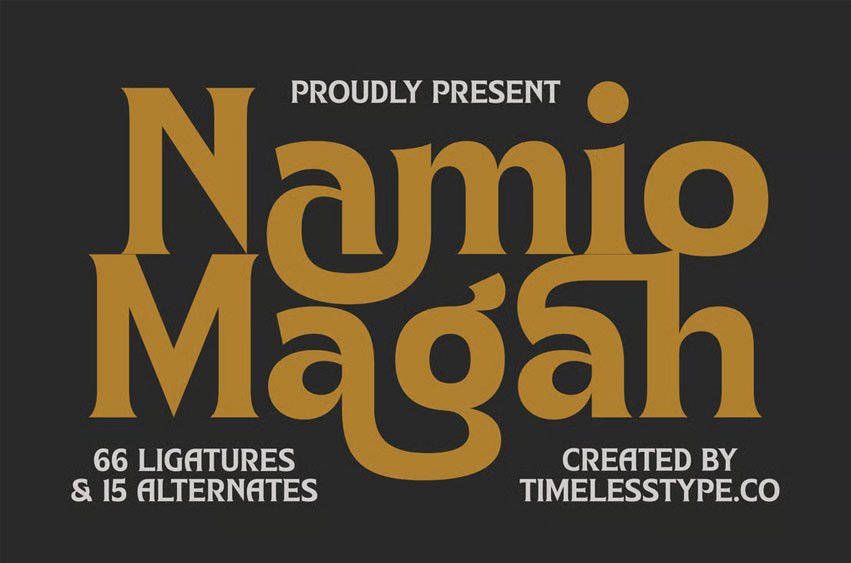
Namio Magah Font
Namio Magah Font is a bold serif display font with a strong retro presence and refined modern balance. Featuring 66 ligatures and 15 alternates, this typeface captures the perfect harmony between vintage curves and contemporary design, ideal for logos, headlines, posters, magazines, and branding visuals.
Its unique letter structure and dynamic flow make Namio Magah stand out as a statement font for creative professionals seeking elegance with personality. Perfect for both print and digital designs, it delivers impact, sophistication, and style in every composition.
• Ligature
• Uppercase and lowercase
• Numbering and Punctuation